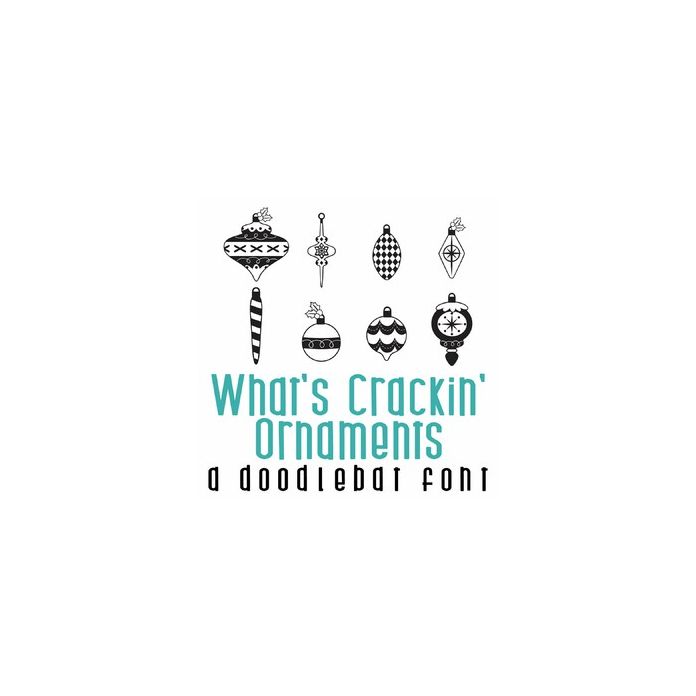
This fun doodlebat font features 26 fun ornaments perfect for the holidays. Perfect for cards, gifts, decor, crafts, scrap book pages, planner stickers and more!